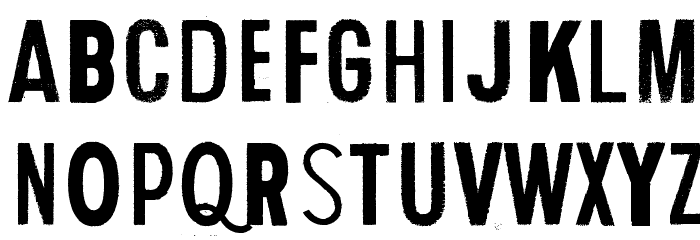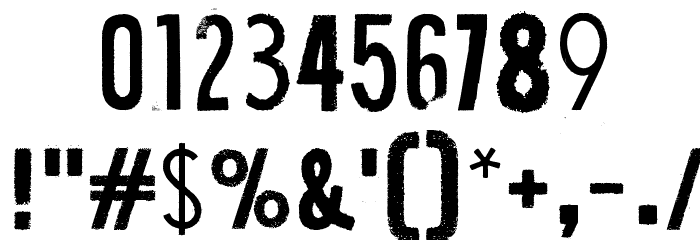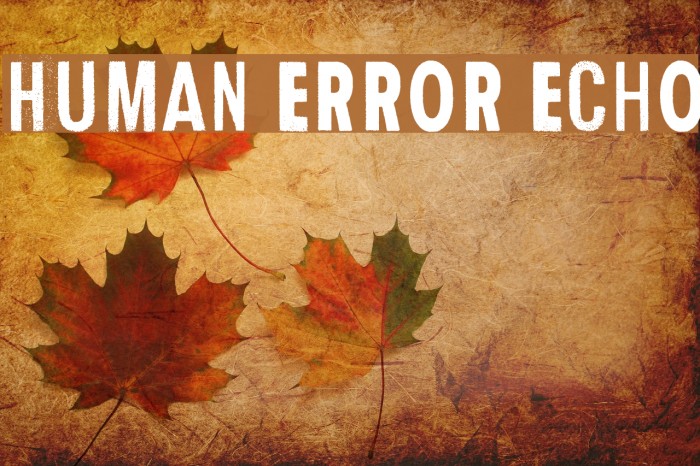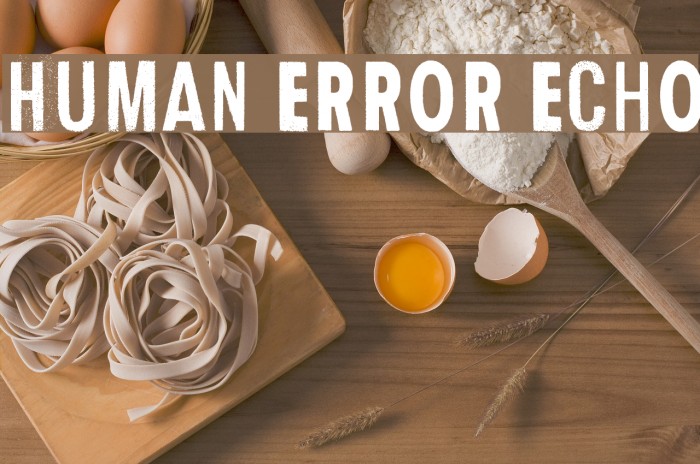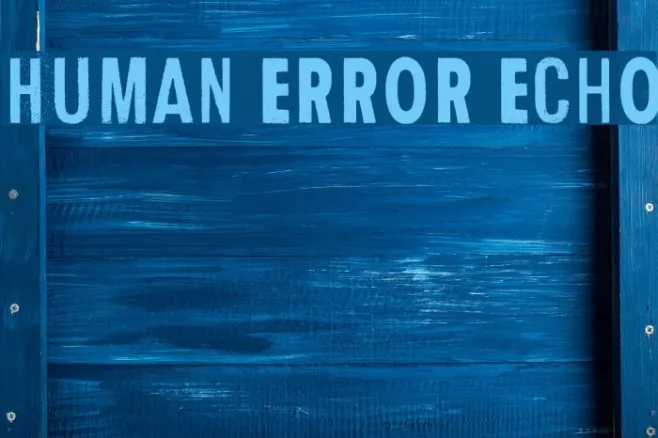
Human Error Echo Font
This font features a bold and distressed appearance, reminiscent of vintage typewriter or letterpress styles. The characters are uppercase and have a slightly uneven texture, giving them a rugged, industrial feel. The numbers and special characters maintain this aesthetic, providing a cohesive look across all glyphs. The font's boldness and texture make it ideal for projects that require a strong, impactful visual presence. Its unique style can add character and authenticity to designs, making it suitable for branding, posters, and other creative applications.
A bold, distressed font with a vintage, industrial style.
- Proposed Projects: Ideal for branding, posters, vintage-themed designs, and creative projects requiring a strong visual impact.
- Overall Style: Vintage, Industrial